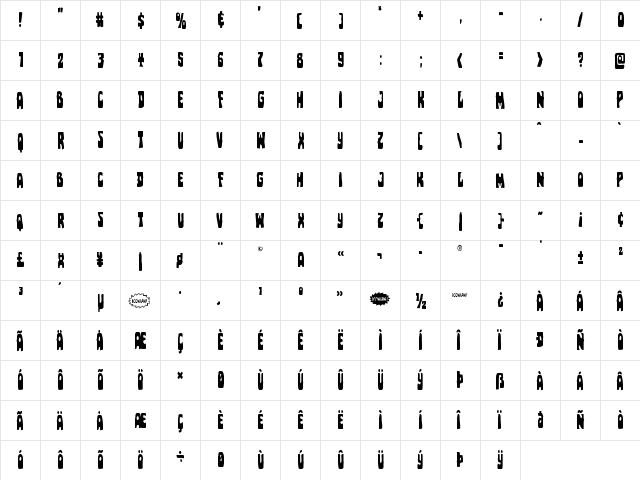
Pocket Monster Condensed Condensed
Design Context for Pocket Monster Condensed Typeface
Pocket Monster Condensed is a composed and adaptable typeface that performs quietly and consistently across a wide range of design contexts. The condensed width makes it efficient for tight spaces without sacrificing legibility.